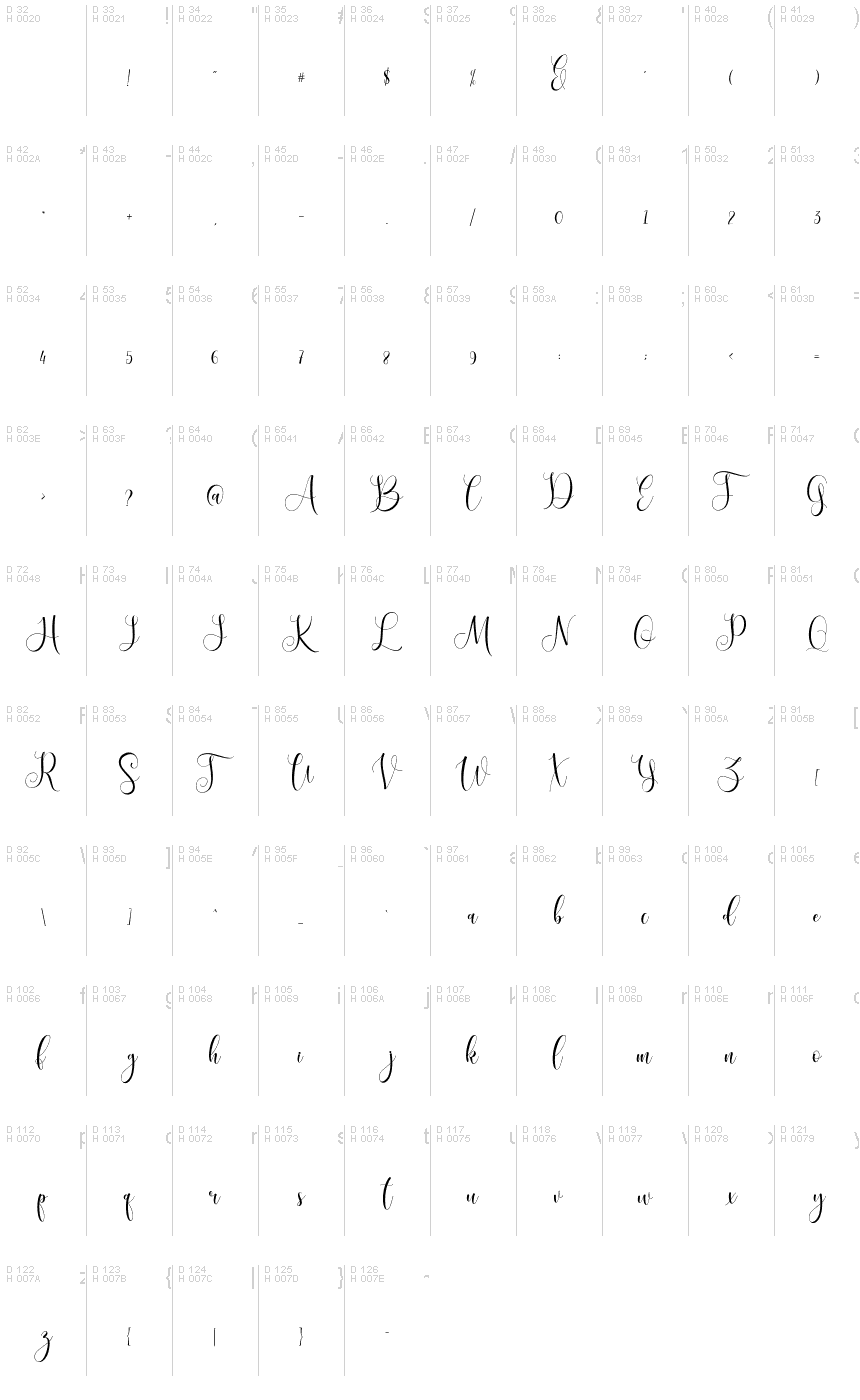
Sulqata
Introducing the new Sulqata Calligraphy Font! For those of you who are needing a touch of elegance and modernity for your designs, this font was created for you !
You can mix and match with Opentype feature:
Ekstras 26 ligature
More than 368 of glyphs
Alternates
Stylistic sets from ss01 to ss07
Using Sulqata definitely make your text stand out.The alternative Sulqata comes includes full set of gorgeous uppercase and lowercase letters, multilingual support, punctuation, and stylistic set gorgeous extras from a to z and beginning and ending numerals swashes.Perfect for DIY projects, greeting cards, labels, quotes, posters, wall art, branding, packaging, websites, photo & photography overlays, signs, window art, scrapbooking, tags and so much more!